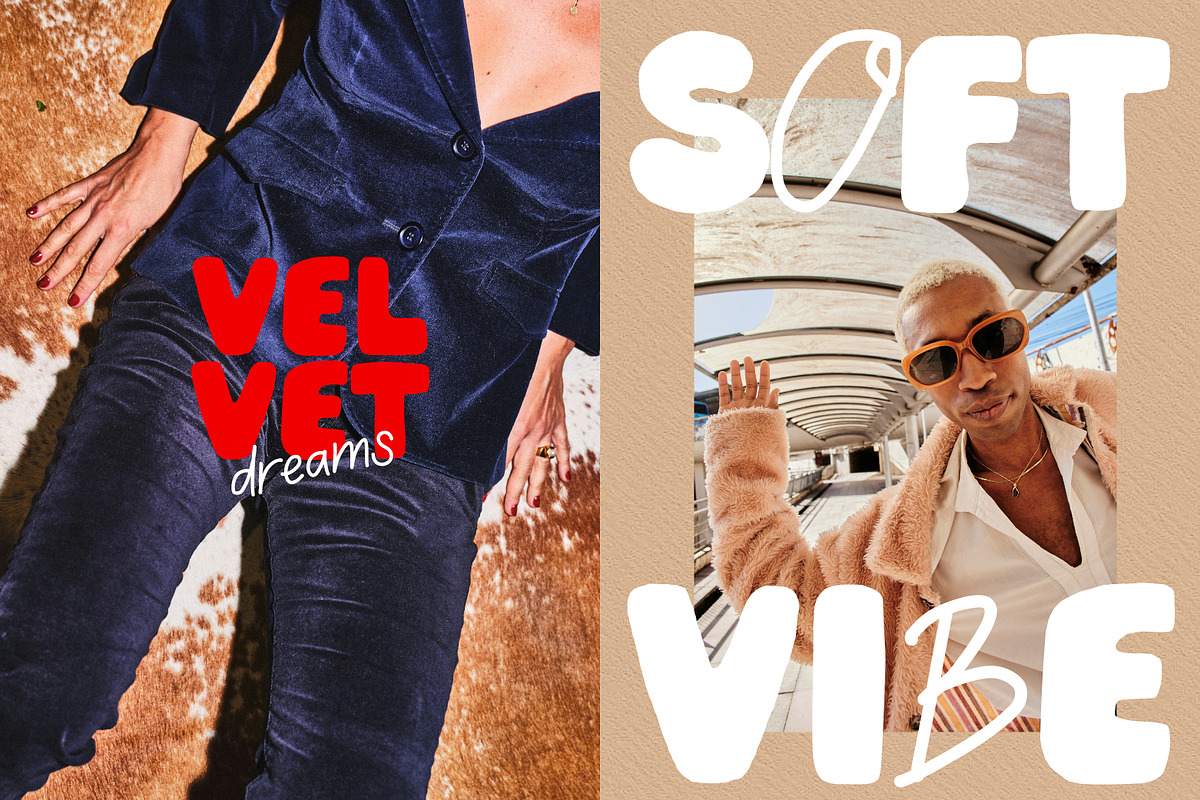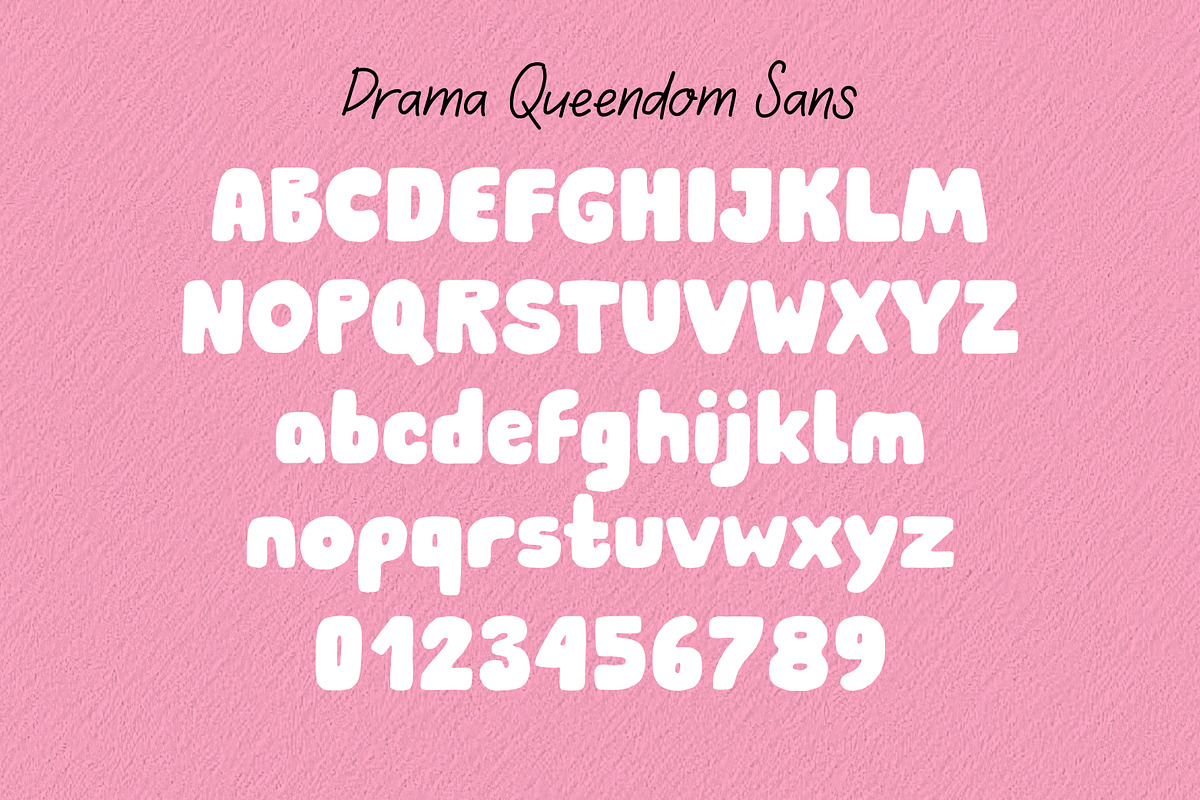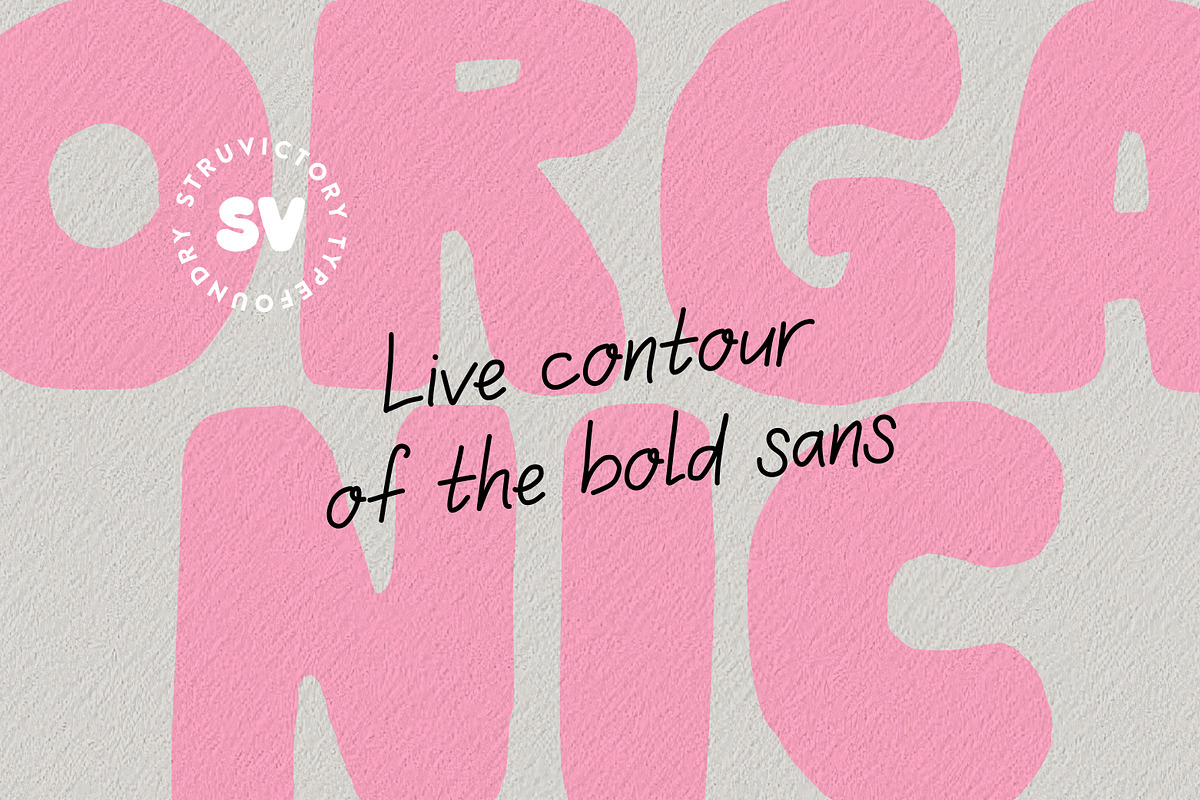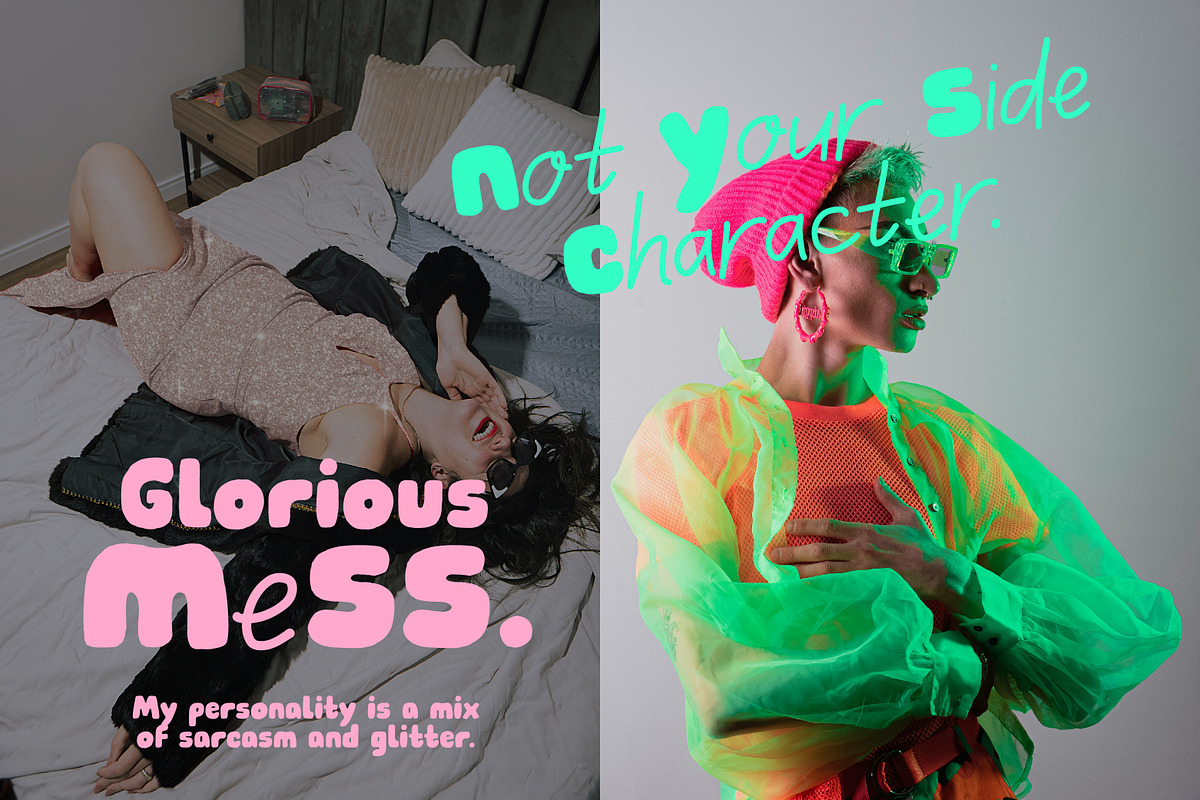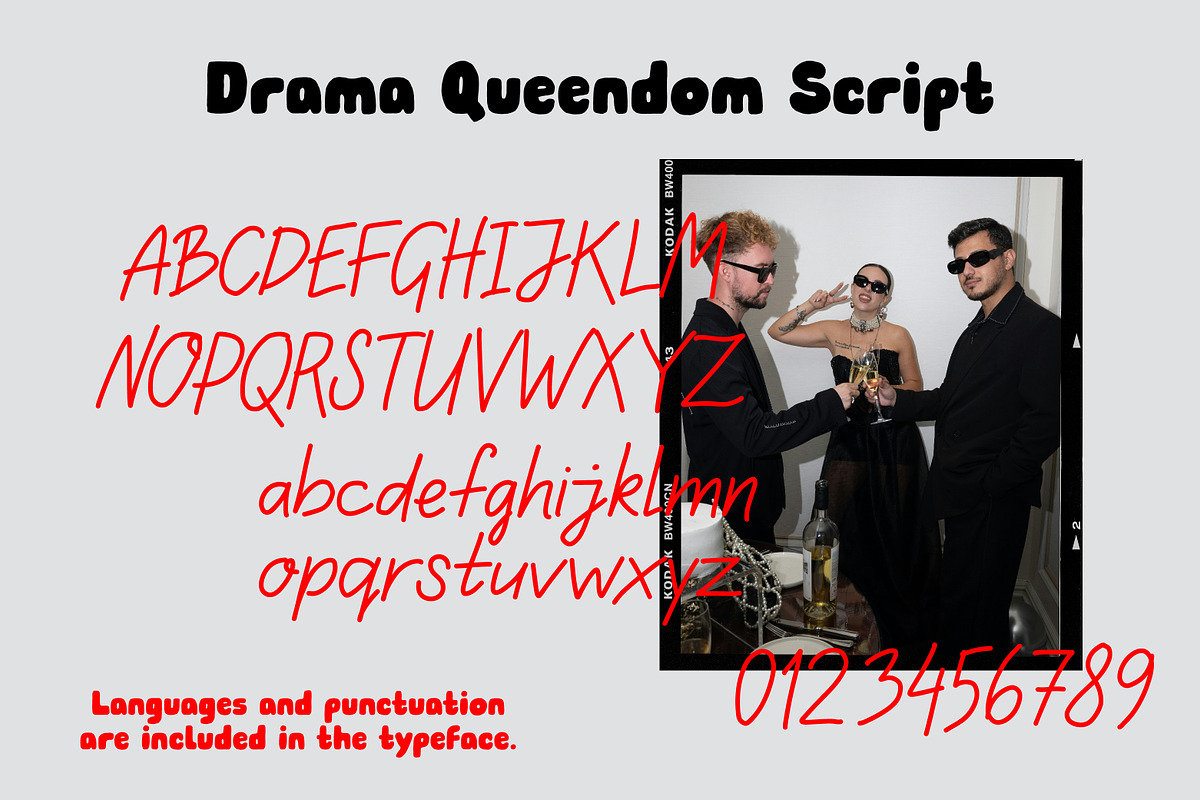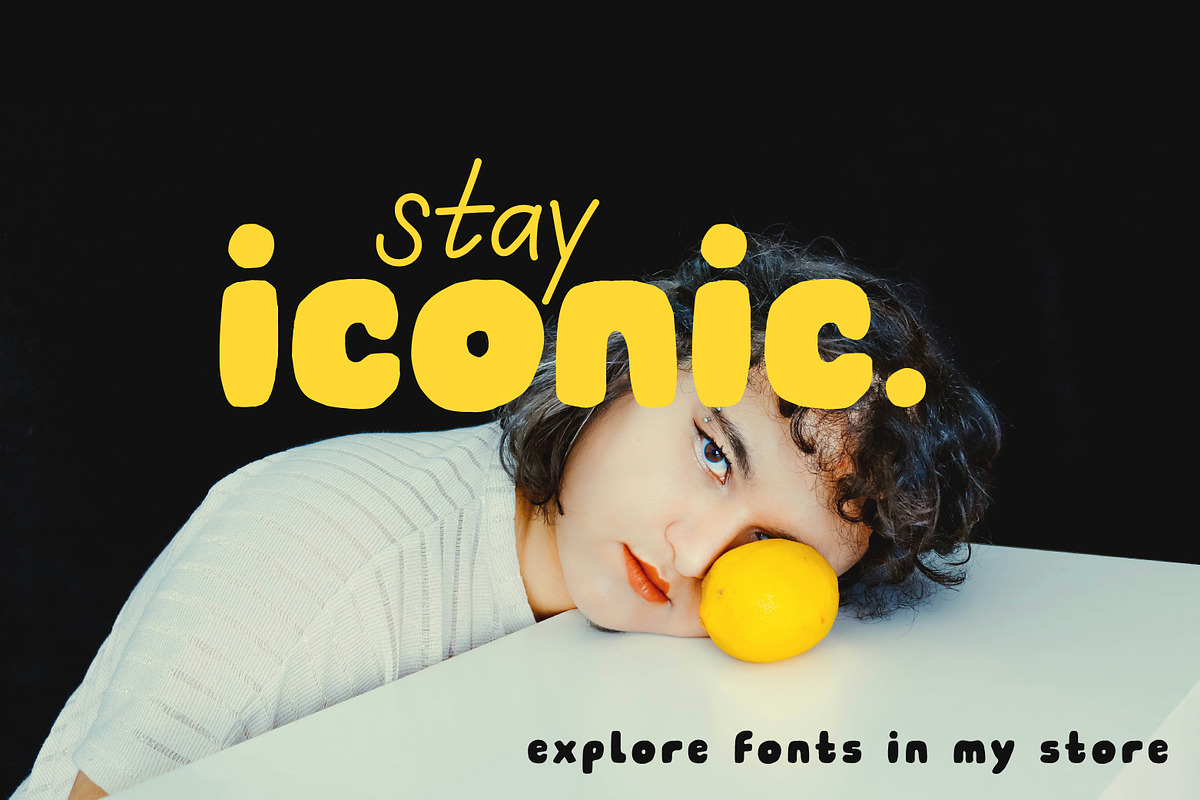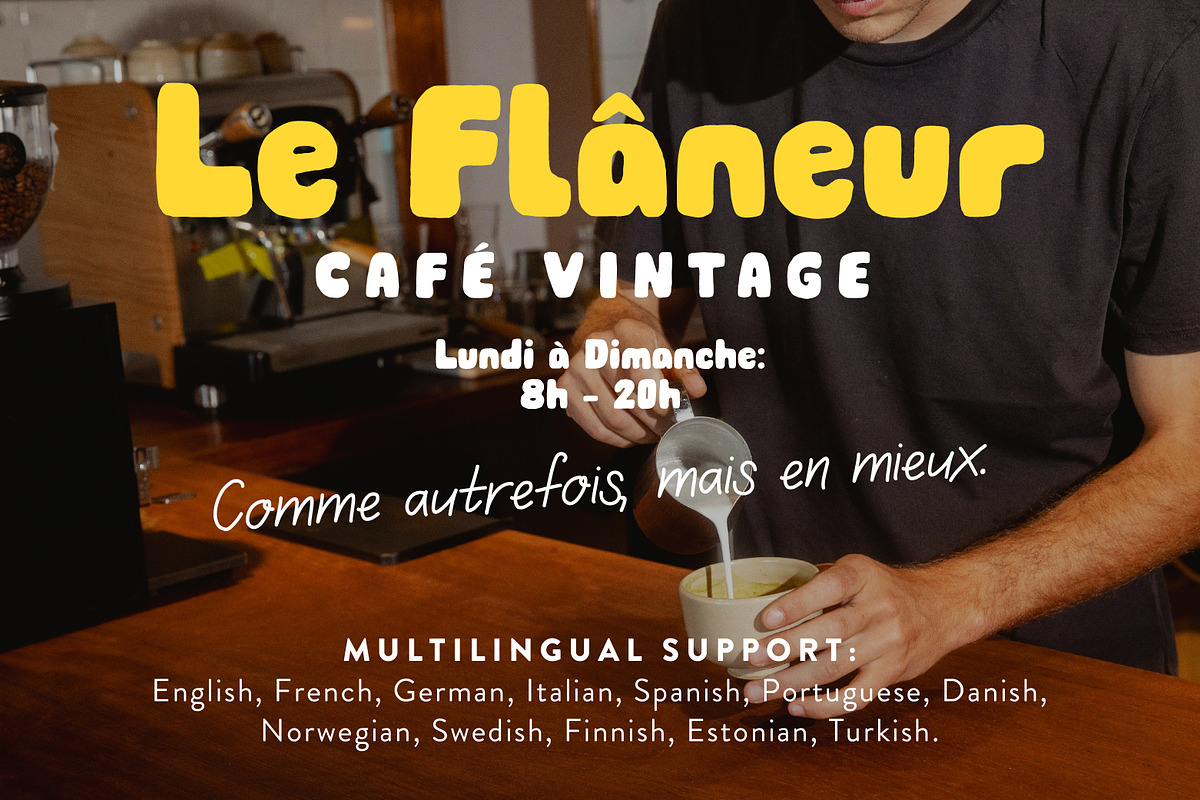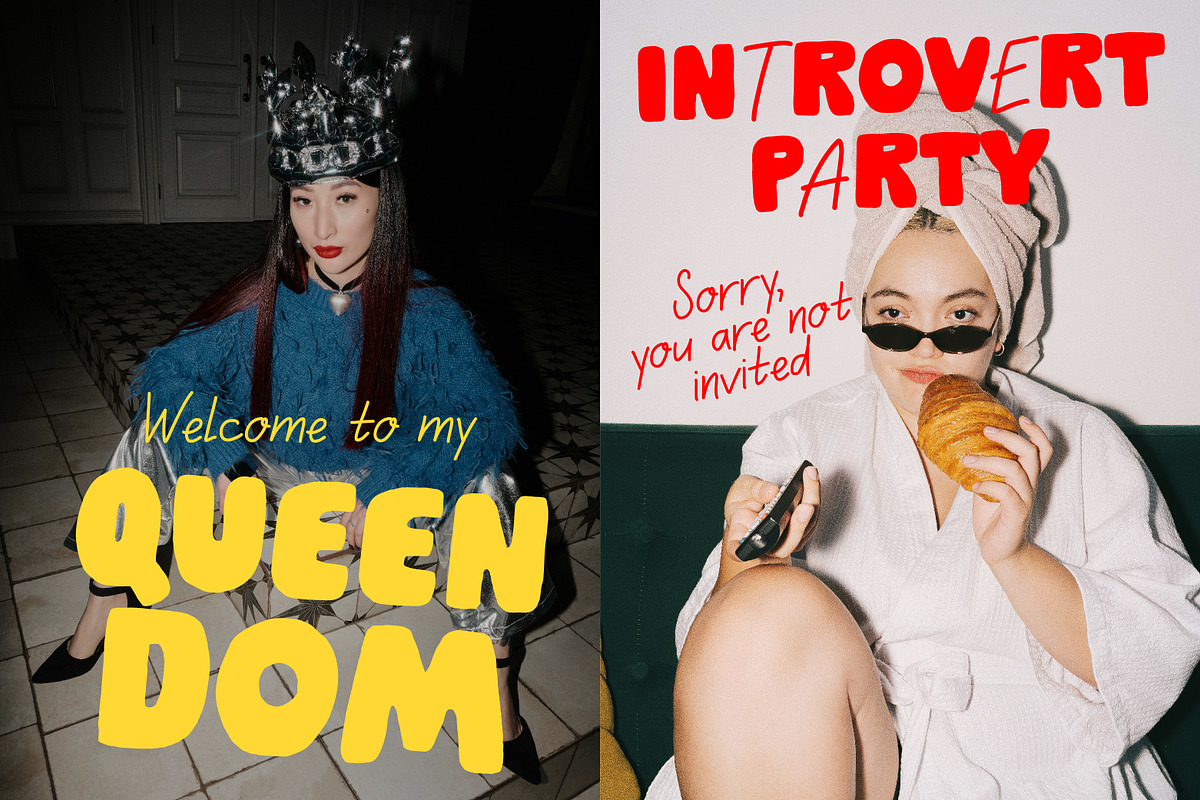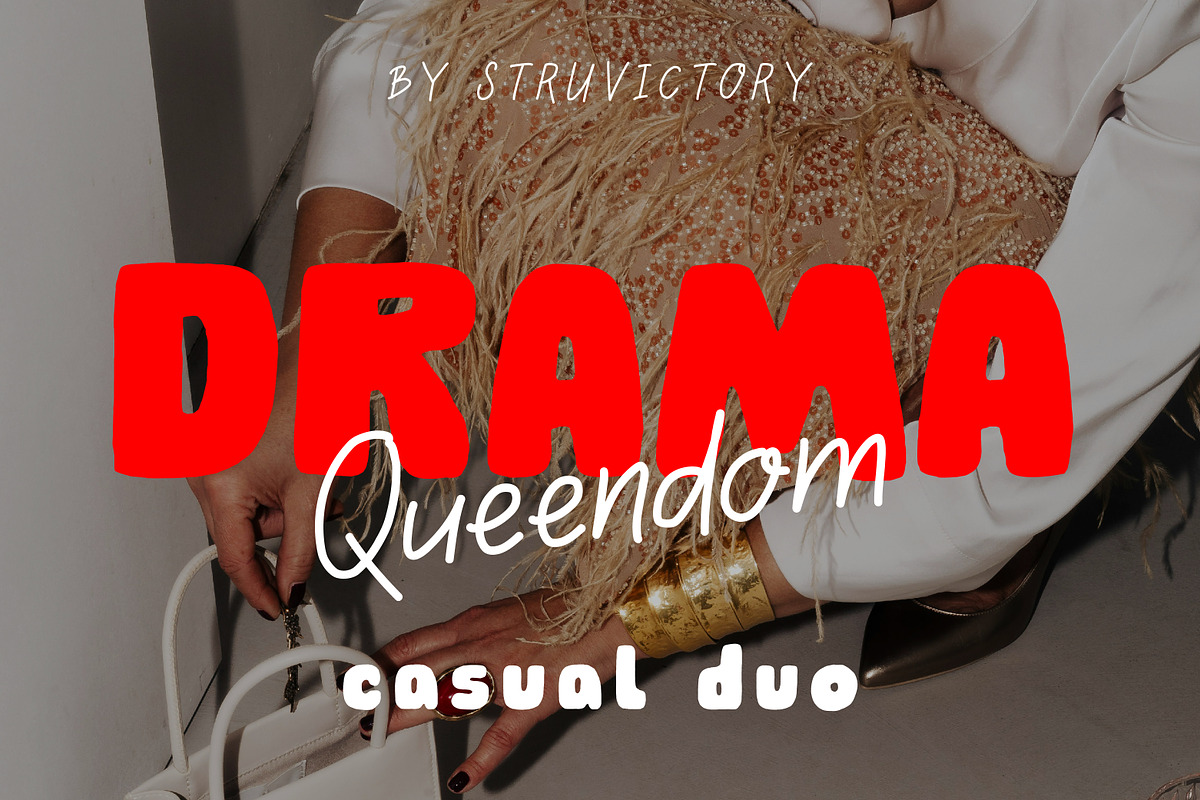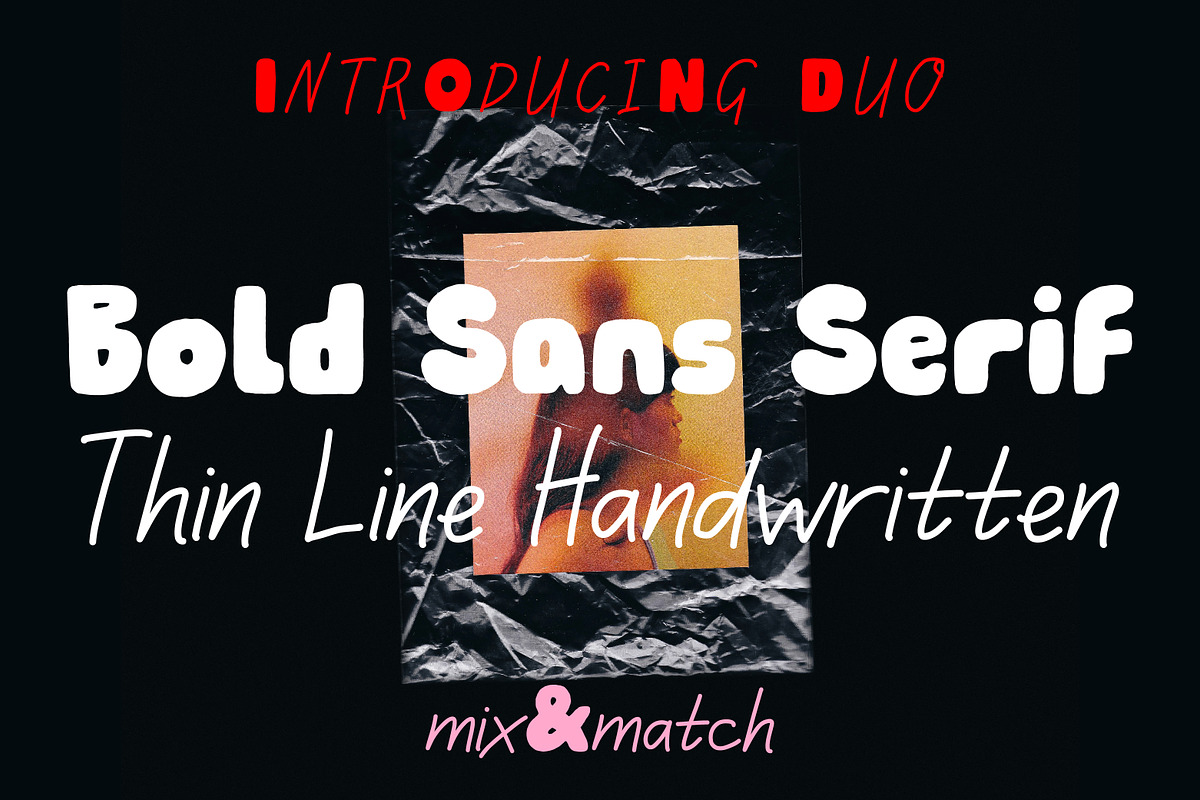
Drama Queendom Playful Vibe Duo
Drama Queendom is a bold font duo that balances power and playfulness. The chunky sans serif brings confidence and impact, while the thin handwritten style adds a touch of effortless personality. Together, they create a dynamic contrast perfect for fashion branding, posters, social media graphics, packaging, and anything that demands both attitude and charm. With its modern edge and expressive vibe, Drama Queendom is made for designers who want their work to be iconic and unforgettable.